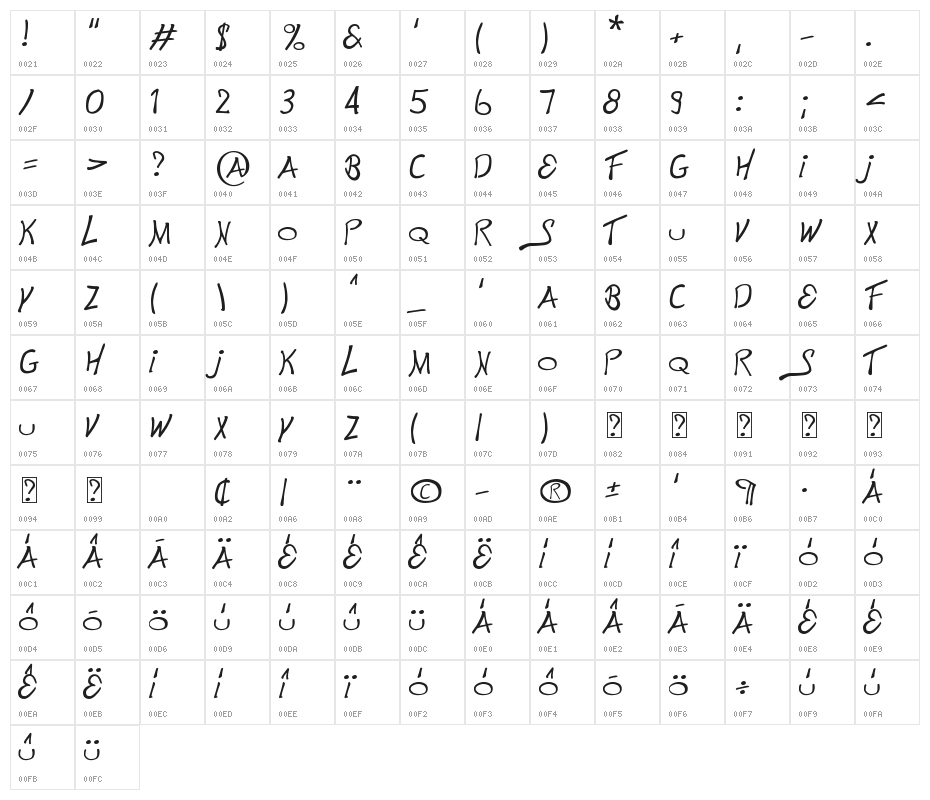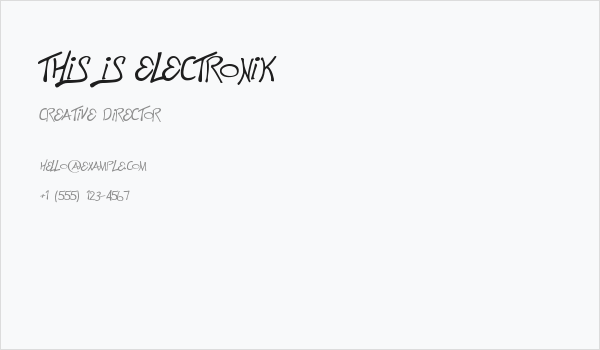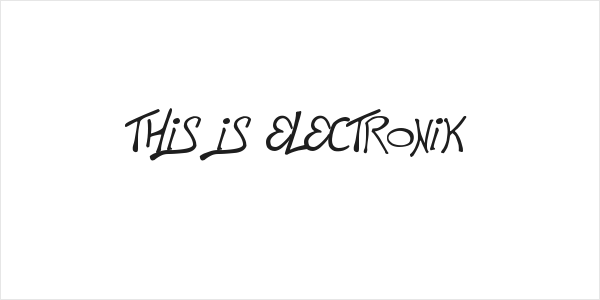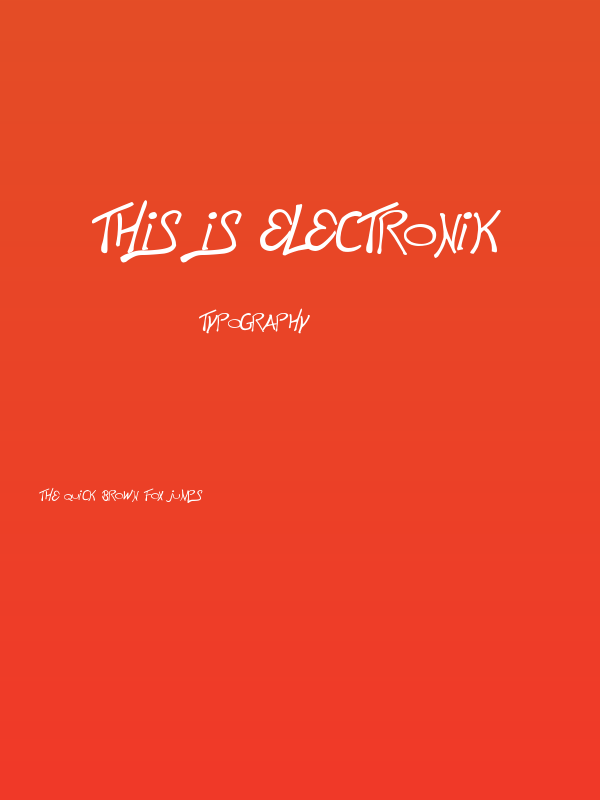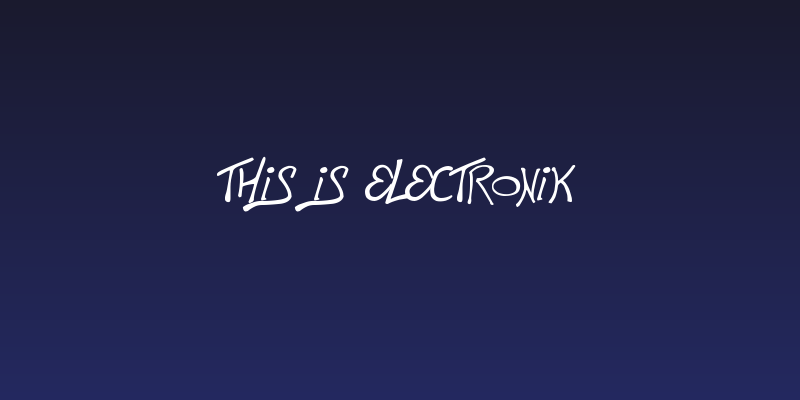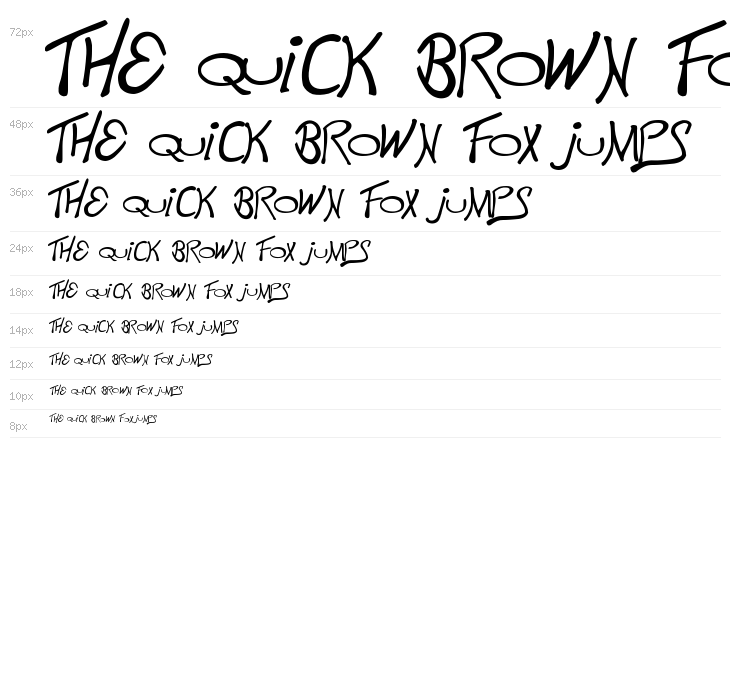
This is Electronik Font
This is Electronik Description
This font features a dynamic and energetic handwritten style, characterized by its fluid and slightly irregular strokes. The letters have a casual, informal appearance, with a playful and artistic flair. The uppercase and lowercase letters maintain a consistent style, with some letters exhibiting unique loops and curves that add to the font's charm. The numerals and special characters are equally expressive, making this font suitable for creative and informal designs. The overall look is modern and lively, perfect for projects that require a personal touch.
| Proposed Projects | Ideal for greeting cards, invitations, posters, and creative branding projects. |